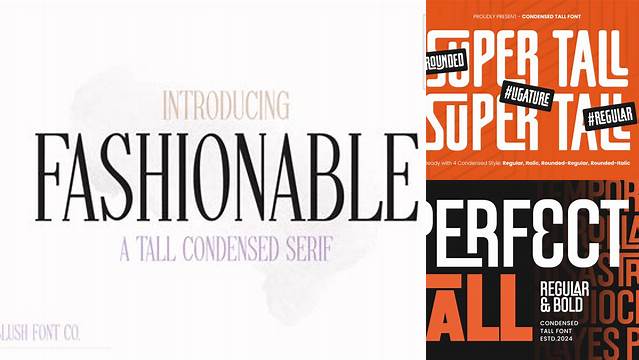
Tall Condensed Google Fonts: A Designer's Guide
Are you looking for tall and condensed Google Fonts to give your designs a modern and sophisticated edge? Well, you've come to the right place, guys! In this comprehensive guide, we'll dive deep into the world of tall, condensed fonts available on Google Fonts, exploring their unique characteristics, ideal use cases, and how to effectively incorporate them into your projects. We'll cover everything from identifying the key features of these fonts to practical tips on pairing them with other typefaces for maximum impact. So, buckle up and get ready to elevate your typography game!
What are Tall and Condensed Fonts?
Before we jump into specific examples, let's first define what we mean by "tall and condensed fonts." These fonts are characterized by their heightened x-height (the height of lowercase letters) and their narrow width. This combination creates a distinctive vertical emphasis, making them perfect for headlines, titles, and other display purposes where you want to grab attention. The condensed nature of these fonts allows you to fit more text into a limited space, which can be incredibly useful in responsive design and layouts with tight constraints. Think of them as the sleek, sophisticated cousins of your regular fonts, adding a touch of elegance and modernity to any project.
Tall and condensed fonts are more than just a stylistic choice; they're a powerful tool for visual communication. They can evoke a sense of height, grandeur, and sophistication, making them ideal for brands that want to project an image of luxury or innovation. Their narrow width also means they can be used effectively in a variety of design contexts, from website headers and print brochures to mobile app interfaces. However, it's crucial to use them judiciously. Overusing tall and condensed fonts can lead to a cluttered and overwhelming design. The key is to find the right balance and use them strategically to highlight key elements and create visual interest. Consider the overall tone and message of your design when selecting a tall and condensed font. Is it formal or informal? Modern or classic? The font you choose should align with the overall aesthetic and help to reinforce the message you're trying to convey. Experiment with different fonts and pairings to see what works best for your specific project. Don't be afraid to break the rules and try something unexpected. The most important thing is to create a visually appealing and effective design that communicates your message clearly.
Why Use Tall Condensed Fonts?
So, why should you even consider using tall condensed fonts in your designs? There are several compelling reasons:
- Visual Impact: These fonts command attention. Their height and narrowness create a striking visual presence that can instantly draw the eye.
- Space Efficiency: As mentioned earlier, their condensed nature allows you to fit more text into a limited area, which is crucial for responsive designs and layouts with tight constraints. Imagine you're designing a website header, and you need to fit a lengthy title within a specific width. A tall condensed font can be a lifesaver, allowing you to maintain readability without sacrificing visual impact. This is especially important in mobile design, where screen real estate is at a premium.
- Modern Aesthetic: Tall condensed fonts often have a contemporary feel, making them ideal for brands and projects that want to project a modern image. They can add a touch of sophistication and elegance to your designs, elevating them from ordinary to extraordinary.
- Versatility: Despite their distinctive appearance, tall condensed fonts can be surprisingly versatile. They work well for headlines, titles, logos, and even body text (when used sparingly and with careful consideration of readability). You can use them to create a bold and impactful statement or to add a subtle touch of elegance to your design. The key is to experiment and find the right balance.
Think about the last time you saw a powerful billboard advertisement or a sleek website header. Chances are, a tall condensed font played a crucial role in capturing your attention. These fonts have a unique ability to cut through the noise and make a lasting impression. They're not just about fitting more text into a space; they're about making a statement and conveying a specific message. Consider the psychology of typography. Different fonts evoke different emotions and associations. Tall condensed fonts often convey a sense of authority, sophistication, and modernity. This makes them ideal for brands that want to project an image of innovation, luxury, or confidence.
Top Tall Condensed Google Fonts
Now for the exciting part! Let's explore some of the top tall condensed Google Fonts that you can use in your projects:
1. Montserrat
Montserrat is a geometric sans-serif typeface that boasts a clean and modern appearance. While not strictly a condensed font family, Montserrat's taller proportions give it a similar visual effect, especially the bolder weights. This makes it a great choice for headlines and titles, where its strong, geometric forms can command attention. Imagine using Montserrat in a website header, paired with a lighter, more traditional serif font for the body text. The contrast between the two typefaces would create a visually appealing and balanced design. Montserrat is also incredibly versatile, working well in both print and digital contexts. Its clean lines and excellent readability make it a solid choice for a wide range of applications, from branding and logos to website content and marketing materials.
One of the key strengths of Montserrat is its extensive range of weights, from thin to black. This gives you a lot of flexibility in your designs, allowing you to create visual hierarchy and add emphasis to specific elements. The bolder weights are perfect for headlines and calls to action, while the lighter weights can be used for subheadings or body text. You can even use different weights of Montserrat within the same design to create a cohesive and visually interesting look. For example, you could use Montserrat Bold for the main headline, Montserrat Medium for subheadings, and Montserrat Regular for the body text. This would create a clear visual hierarchy and make your content easy to scan and read. In addition to its visual appeal, Montserrat is also a highly functional font. Its excellent readability makes it a great choice for websites, apps, and other digital interfaces. The clear, geometric forms of the letters ensure that the text is easy to read, even at small sizes. This is crucial for user experience, as it ensures that users can easily access and understand the information you're presenting. Montserrat is also a popular choice for print materials, such as brochures, flyers, and posters. Its clean lines and strong presence make it an excellent choice for headlines, titles, and other display text.
2. Oswald
Oswald is a classic condensed sans-serif that's been specifically redesigned for digital screens. Its slightly rounded terminals give it a friendly and approachable feel, while its condensed form ensures it remains space-efficient. Oswald is a fantastic option for headlines, particularly in online contexts. Think of using Oswald for blog post titles, website navigation menus, or social media graphics. Its clean, legible forms and condensed width make it ideal for these applications. Oswald's versatility also extends to print design. You can use it for posters, brochures, and other marketing materials where you need a strong, eye-catching headline. The slightly rounded terminals give it a touch of warmth and personality, making it a great choice for brands that want to project a friendly and approachable image.
One of the key advantages of Oswald is its excellent readability on digital screens. The font has been specifically optimized for use in web and mobile environments, ensuring that the text remains clear and legible even at small sizes. This is crucial for user experience, as it makes it easier for visitors to read and understand your content. Oswald also offers a range of weights, allowing you to create visual hierarchy and add emphasis to specific elements. The bolder weights are ideal for headlines and calls to action, while the lighter weights can be used for subheadings or body text. You can even use different weights of Oswald within the same design to create a cohesive and visually interesting look. For example, you could use Oswald Bold for the main headline, Oswald Medium for subheadings, and Oswald Regular for the body text. This would create a clear visual hierarchy and make your content easy to scan and read. In addition to its visual appeal and readability, Oswald is also a highly accessible font. It is available for free on Google Fonts, making it a great option for designers and developers who are working on a budget. The font is also easy to implement on websites and other digital platforms, thanks to its wide availability and compatibility. Overall, Oswald is a versatile and highly functional font that is well-suited for a wide range of design applications. Its clean lines, excellent readability, and friendly appearance make it a popular choice for both print and digital designs.
3. Roboto Condensed
As part of the Roboto family, Roboto Condensed inherits its legibility and versatility but in a more compact form. This makes it a great choice for body text in addition to headlines. The Roboto family, in general, is known for its clean, modern aesthetic and excellent readability, making it a staple in web design. Roboto Condensed takes these qualities and condenses them, allowing you to fit more text into a limited space without sacrificing legibility. Imagine using Roboto Condensed for the body text of a website or blog, paired with a bolder, more decorative font for the headlines. This combination would create a clean and professional look that is easy on the eyes. Roboto Condensed also works well in print, particularly in situations where space is limited, such as in brochures or catalogs.
One of the key strengths of Roboto Condensed is its exceptional legibility, even at small sizes. This is crucial for body text, where readability is paramount. The font's clear and simple forms ensure that the text is easy to read, even on screens with lower resolutions. Roboto Condensed also offers a range of weights, allowing you to create visual hierarchy and add emphasis to specific elements. The bolder weights can be used for headings and subheadings, while the lighter weights are ideal for body text. You can even use different weights of Roboto Condensed within the same design to create a cohesive and visually interesting look. For example, you could use Roboto Condensed Bold for the main headings, Roboto Condensed Medium for subheadings, and Roboto Condensed Regular for the body text. This would create a clear visual hierarchy and make your content easy to scan and read. In addition to its legibility and versatility, Roboto Condensed is also a highly accessible font. It is available for free on Google Fonts, making it a great option for designers and developers who are working on a budget. The font is also easy to implement on websites and other digital platforms, thanks to its wide availability and compatibility. Overall, Roboto Condensed is a highly functional and versatile font that is well-suited for a wide range of design applications. Its excellent legibility, clean aesthetic, and condensed form make it a popular choice for both print and digital designs.
4. Fira Sans Condensed
Fira Sans Condensed is another excellent option, offering a humanist sans-serif design with a slightly wider stance than some other condensed fonts. This gives it a more open and approachable feel, making it a great choice for brands that want to convey a sense of friendliness and trustworthiness. Fira Sans Condensed is particularly well-suited for UI design, where its legibility and clean lines make it easy to read on screens of all sizes. Think of using Fira Sans Condensed for button labels, menu items, or form fields. Its humanist design also makes it a great choice for body text, particularly in situations where you want to convey a sense of warmth and approachability.
One of the key strengths of Fira Sans Condensed is its humanist design, which gives it a more organic and friendly feel than some other sans-serif fonts. This makes it a great choice for brands that want to project an image of warmth, approachability, and trustworthiness. The font's slightly wider stance also contributes to its legibility, making it easy to read on screens of all sizes. Fira Sans Condensed offers a range of weights, allowing you to create visual hierarchy and add emphasis to specific elements. The bolder weights can be used for headings and subheadings, while the lighter weights are ideal for body text. You can even use different weights of Fira Sans Condensed within the same design to create a cohesive and visually interesting look. For example, you could use Fira Sans Condensed Bold for the main headings, Fira Sans Condensed Medium for subheadings, and Fira Sans Condensed Regular for the body text. This would create a clear visual hierarchy and make your content easy to scan and read. In addition to its humanist design and legibility, Fira Sans Condensed is also a highly accessible font. It is available for free on Google Fonts, making it a great option for designers and developers who are working on a budget. The font is also easy to implement on websites and other digital platforms, thanks to its wide availability and compatibility. Overall, Fira Sans Condensed is a versatile and highly functional font that is well-suited for a wide range of design applications. Its humanist design, excellent legibility, and condensed form make it a popular choice for both print and digital designs, particularly in UI design and body text applications.
5. Titillium Web
Titillium Web is a geometric sans-serif font characterized by its clean lines and slightly rounded corners. It's a versatile option that works well for both headlines and body text. Its modern and minimalist aesthetic makes it a great choice for brands that want to project an image of sophistication and innovation. Titillium Web is particularly well-suited for websites and other digital applications, where its clean lines and excellent legibility make it easy to read on screens of all sizes. Think of using Titillium Web for website headers, navigation menus, or blog content. Its slightly rounded corners give it a touch of warmth and personality, making it a great choice for brands that want to convey a sense of approachability and friendliness.
One of the key strengths of Titillium Web is its geometric design, which gives it a clean, modern, and minimalist aesthetic. This makes it a great choice for brands that want to project an image of sophistication, innovation, and forward-thinking. The font's clean lines and excellent legibility also make it a great choice for websites and other digital applications, where readability is paramount. Titillium Web offers a range of weights, allowing you to create visual hierarchy and add emphasis to specific elements. The bolder weights can be used for headings and subheadings, while the lighter weights are ideal for body text. You can even use different weights of Titillium Web within the same design to create a cohesive and visually interesting look. For example, you could use Titillium Web Bold for the main headings, Titillium Web SemiBold for subheadings, and Titillium Web Regular for the body text. This would create a clear visual hierarchy and make your content easy to scan and read. In addition to its geometric design and legibility, Titillium Web is also a highly accessible font. It is available for free on Google Fonts, making it a great option for designers and developers who are working on a budget. The font is also easy to implement on websites and other digital platforms, thanks to its wide availability and compatibility. Overall, Titillium Web is a versatile and highly functional font that is well-suited for a wide range of design applications. Its geometric design, excellent legibility, and slightly rounded corners make it a popular choice for both print and digital designs, particularly in website design and branding applications.
Tips for Using Tall Condensed Fonts
Using tall condensed fonts effectively requires a bit of finesse. Here are some tips to help you make the most of them:
- Pairing is Key: Tall condensed fonts often look best when paired with a contrasting font, such as a wider sans-serif or a classic serif. This creates visual interest and prevents your design from feeling monotonous. For example, you could pair Oswald with a lighter-weight serif font like Merriweather for the body text. Or, you could use Montserrat for headlines and Open Sans for body copy. The key is to experiment and find pairings that complement each other and create a balanced and harmonious design.
- Headlines and Titles: They excel in headlines and titles, where their height and narrowness can make a strong visual impact. Use them to draw the eye and create a clear hierarchy in your design. Think of using a tall condensed font for the main headline on a website homepage, or for the title of a blog post. This will instantly grab the attention of your visitors and make your content more engaging.
- Legibility Matters: While they're great for display purposes, be cautious about using tall condensed fonts for large blocks of body text. Their condensed nature can sometimes make them less legible at smaller sizes. If you do decide to use them for body text, make sure to choose a weight that is easy to read and consider increasing the line height to improve readability. It's always a good idea to test your designs on different screens and devices to ensure that the text remains legible.
- Consider the Context: The best font choice depends on the overall tone and message of your design. Tall condensed fonts often convey a sense of modernity and sophistication, so they might not be the best choice for a project that aims for a more traditional or playful aesthetic. Think about the brand or project you're designing for and choose a font that aligns with its overall personality and values. For example, a tech startup might choose a tall condensed font to project an image of innovation and modernity, while a more established company might opt for a more classic and traditional typeface.
- Don't Overdo It: Like any design element, tall condensed fonts should be used judiciously. Overusing them can lead to a cluttered and overwhelming design. The key is to find the right balance and use them strategically to highlight key elements and create visual interest. Think about using a tall condensed font for the main headline on a page, but then using a different font for subheadings and body text. This will create a clear visual hierarchy and prevent your design from feeling too heavy or overwhelming.
Tall condensed Google Fonts are a fantastic tool for adding a touch of modernity and sophistication to your designs. By understanding their unique characteristics and using them strategically, you can elevate your typography and create visually compelling projects. So, go ahead and experiment with these fonts, guys! You might just discover your new favorite typeface!
Remember, the key to successful typography is experimentation and a keen eye for detail. Don't be afraid to try different font pairings, weights, and sizes until you find the perfect combination for your project. And most importantly, always prioritize legibility and readability. A beautiful font is useless if it's difficult to read. So, take your time, experiment, and have fun! With a little practice, you'll be a typography master in no time!